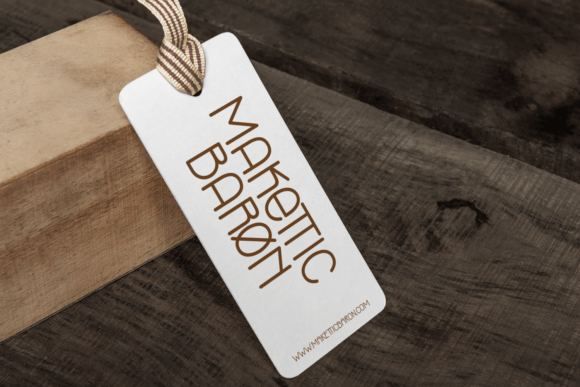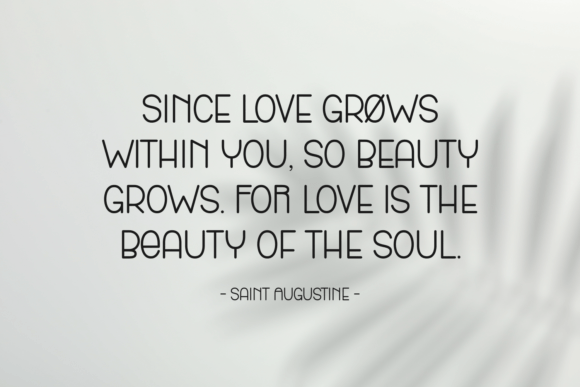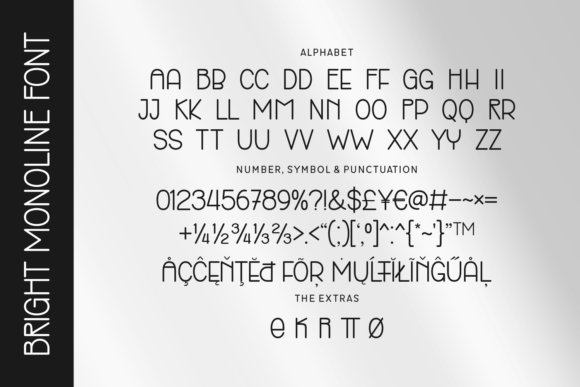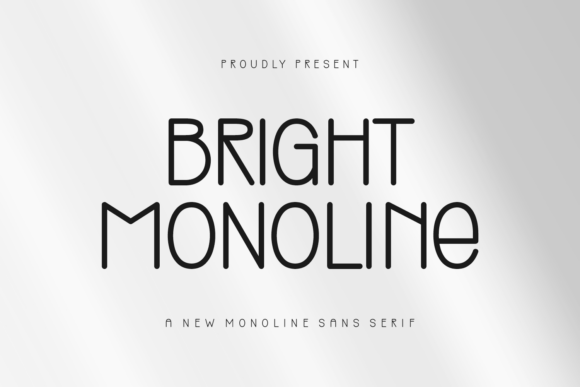
Introducing Bright Monoline Font: Elevate Your Designs with Sleek Sophistication
In the world of typography, fonts play a crucial role in conveying the message and aesthetic of a design. For designers and crafters looking to add a touch of elegance and modernity to their projects, the Bright Monoline Font is an excellent choice. This sleek and modern sans serif font boasts a monoline design, characterized by clean lines and an elegant look that instantly elevates any design.
What is Bright Monoline Font?
Bright Monoline is a contemporary sans serif font that features a monoline design. This means that the font is constructed from lines of a single width, creating a harmonious and streamlined appearance. The result is a font that exudes sophistication and style, making it perfect for a wide range of design applications, from branding and advertising to packaging and digital media.
Key Features of Bright Monoline Font
• Clean Lines: The monoline design of Bright Monoline Font ensures that the text is easy to read and understand, while also providing a clean and minimalist look.
• Elegant Look: The font’s sleek and modern design makes it perfect for designs that require a touch of sophistication and elegance.
• Easy to Read: Despite its elegant appearance, Bright Monoline Font remains highly legible, making it suitable for both digital and print applications.
• Versatile: The font’s neutral design ensures that it can be used in a wide range of design contexts, from corporate branding to creative projects.
Why Choose Bright Monoline Font?
There are several reasons why Bright Monoline Font stands out from the crowd:
• Uniqueness: The monoline design of Bright Monoline Font gives it a unique and distinctive look that sets it apart from more traditional fonts.
• Modern Appeal: The font’s sleek and modern design ensures that it will appeal to designers and crafters looking for a contemporary look.
• High Legibility: Bright Monoline Font is designed to be easy to read, making it perfect for designs that require a clear and concise message.
• Customization: The font’s simple design makes it easy to customize and manipulate, allowing designers to create unique and personalized designs.
Use Cases for Bright Monoline Font
Bright Monoline Font is a versatile font that can be used in a wide range of design applications, including:
• Branding and Identity: Use Bright Monoline Font to create a sleek and modern brand identity that stands out from the crowd.
• Advertising and Marketing: The font’s clean lines and elegant look make it perfect for use in advertising and marketing materials.
• Packaging: Bright Monoline Font is a great choice for packaging designs that require a modern and sophisticated look.
• Digital Media: The font’s high legibility and clean design make it suitable for use in digital media, including websites, social media, and mobile apps.
In conclusion, Bright Monoline Font is a sleek and modern sans serif font that offers a unique combination of elegance, sophistication, and legibility. Its monoline design and clean lines make it perfect for designers and crafters looking to add a touch of style and sophistication to their projects. With its versatility and customization options, Bright Monoline Font is an excellent choice for a wide range of design applications.
Whether you’re a designer, crafter, or simply someone looking for a high-quality font, Bright Monoline Font is definitely worth considering. Its modern appeal, high legibility, and unique design make it an excellent addition to any design project.